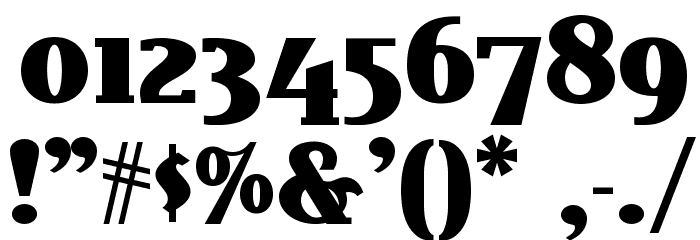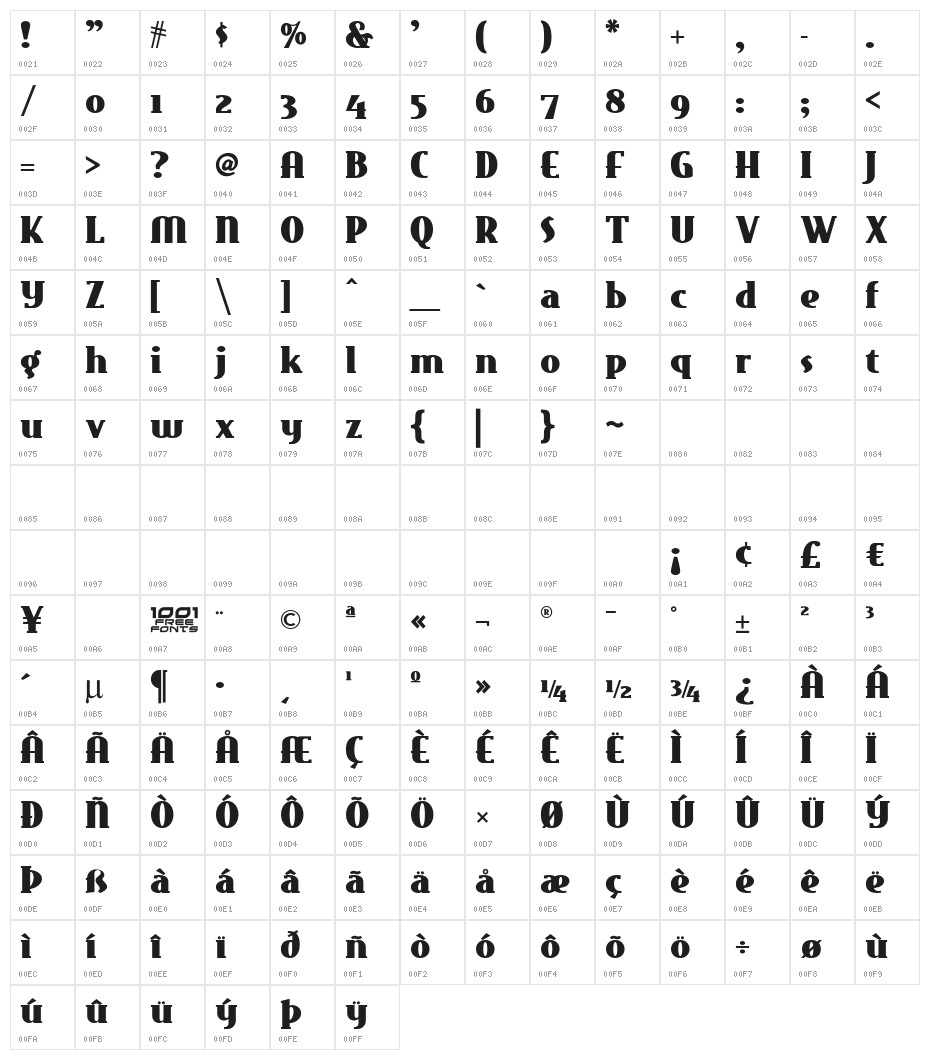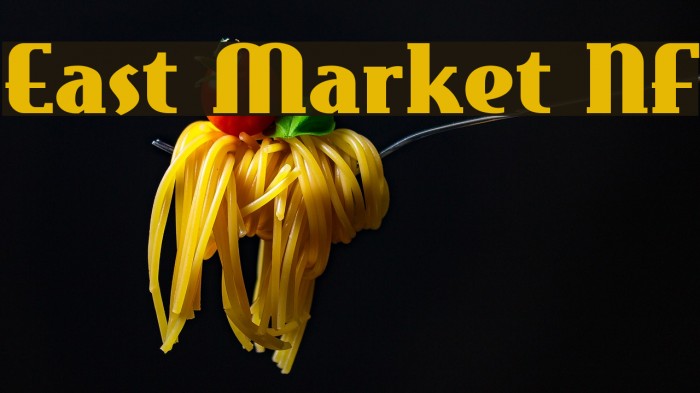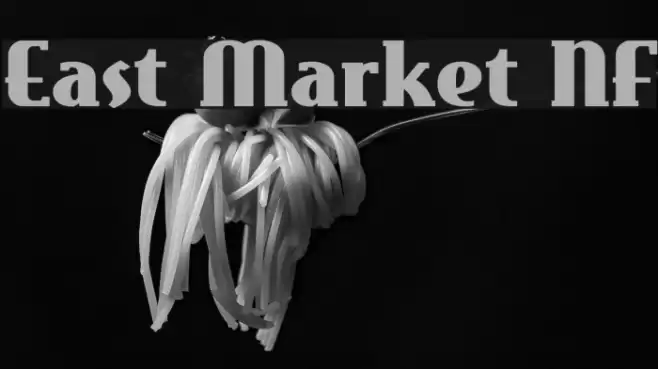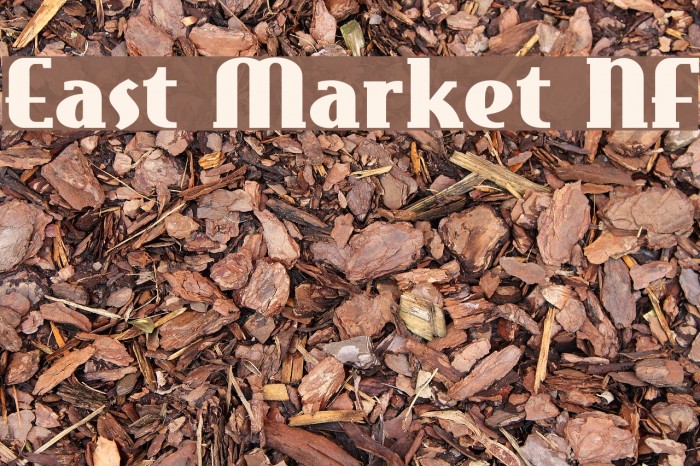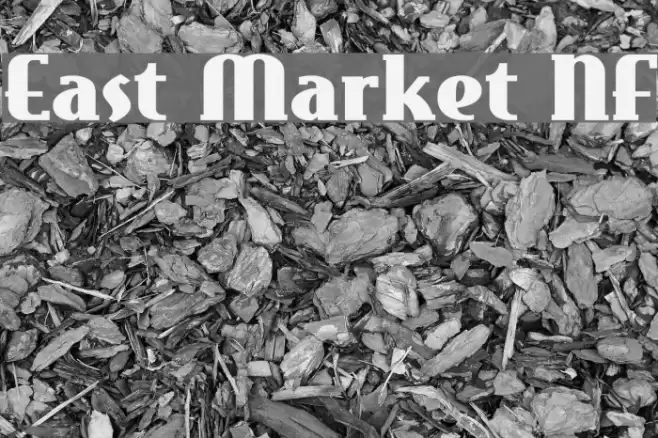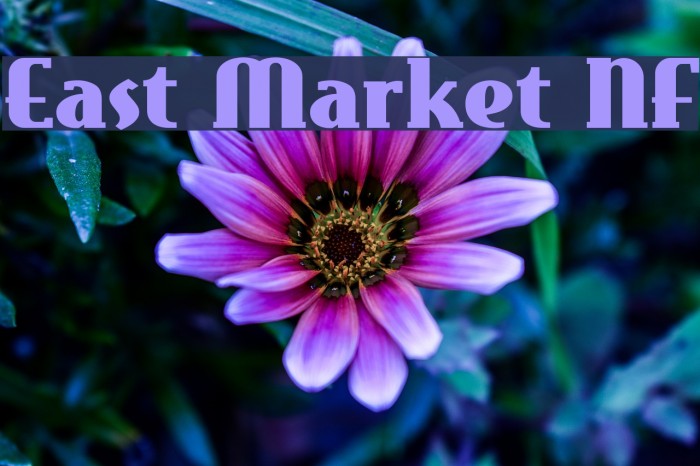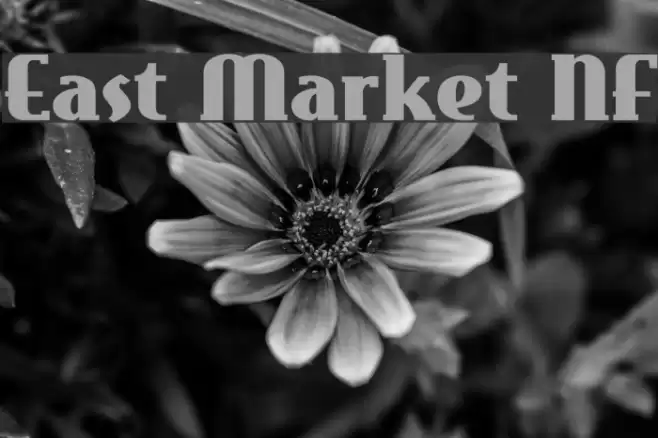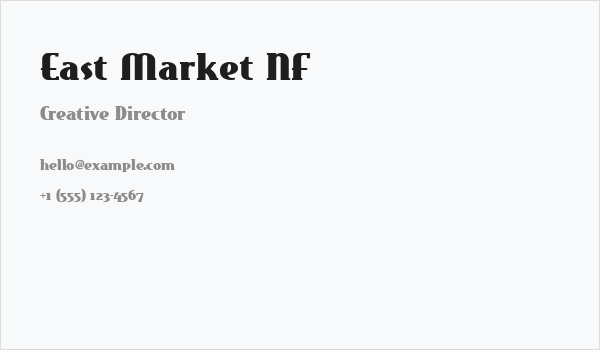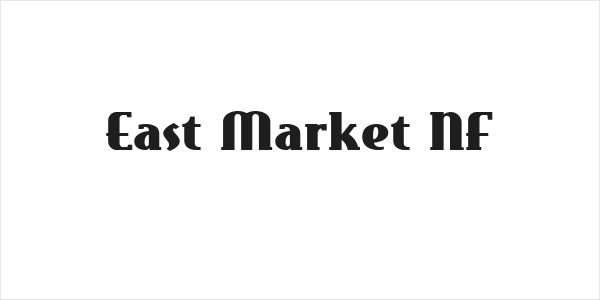
East Market NF Font
East Market NF Description
This font features a bold and striking design with a strong presence. The characters have a unique blend of geometric and organic shapes, giving them a distinctive and memorable appearance. The uppercase letters are particularly bold, with thick strokes and sharp angles, while the lowercase letters maintain a consistent weight and style. The numerals are equally bold, ensuring they stand out in any context. The special characters are designed to complement the overall aesthetic, with a similar weight and style. This font is perfect for making a statement and drawing attention.